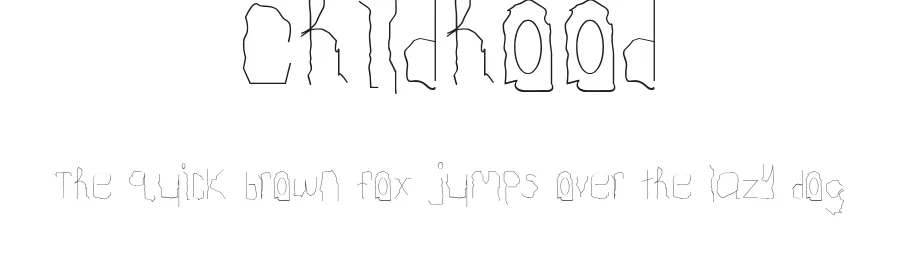
About Mary's Handwriting Font
Mary's Handwriting is a script & handwritten font designed by Gabbi. It includes 168 glyphs, a medium weight, TTF (TrueType) format, and 203 languages. Mary's Handwriting is free to download; check the license details on this page before commercial use. Script & handwritten fonts like Mary's Handwriting work best for wedding invitations, greeting cards, signatures, and elegant branding.
Mary's Handwriting supports 203 languages.
Mary's Handwriting Font is a script font that shines as a display or heading face. Pair it with a clean sans-serif or serif font for body text β the contrast creates a clear hierarchy while the two styles stay balanced and easy to read.
Mary's Handwriting Font
by Gabbi
Mary's Handwriting Font is a script handwritten typeface by Gabbi, ideal for logos, invitations, branding, and creative projects.